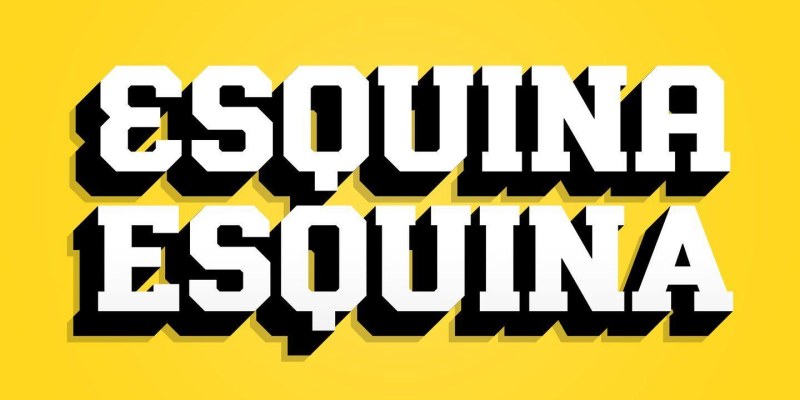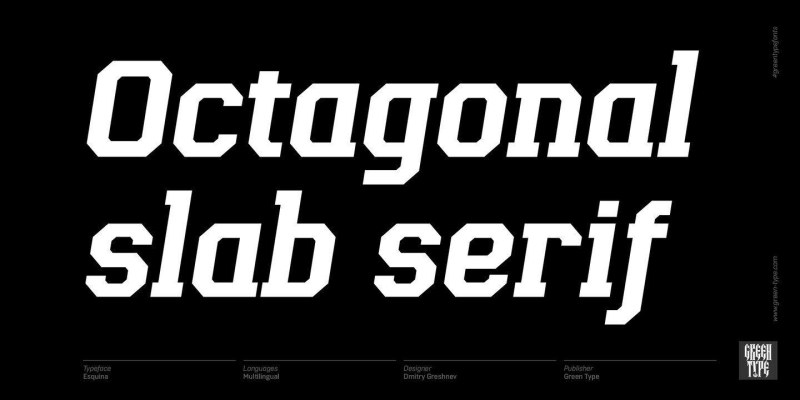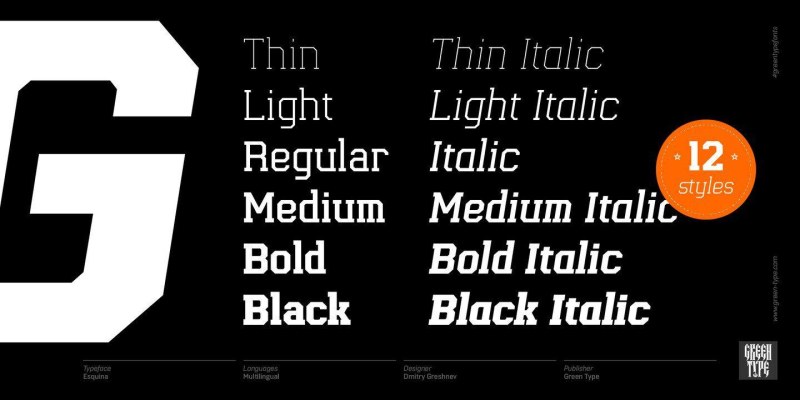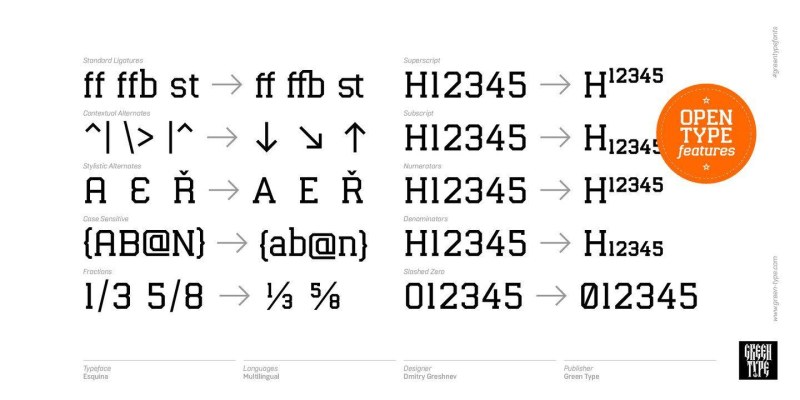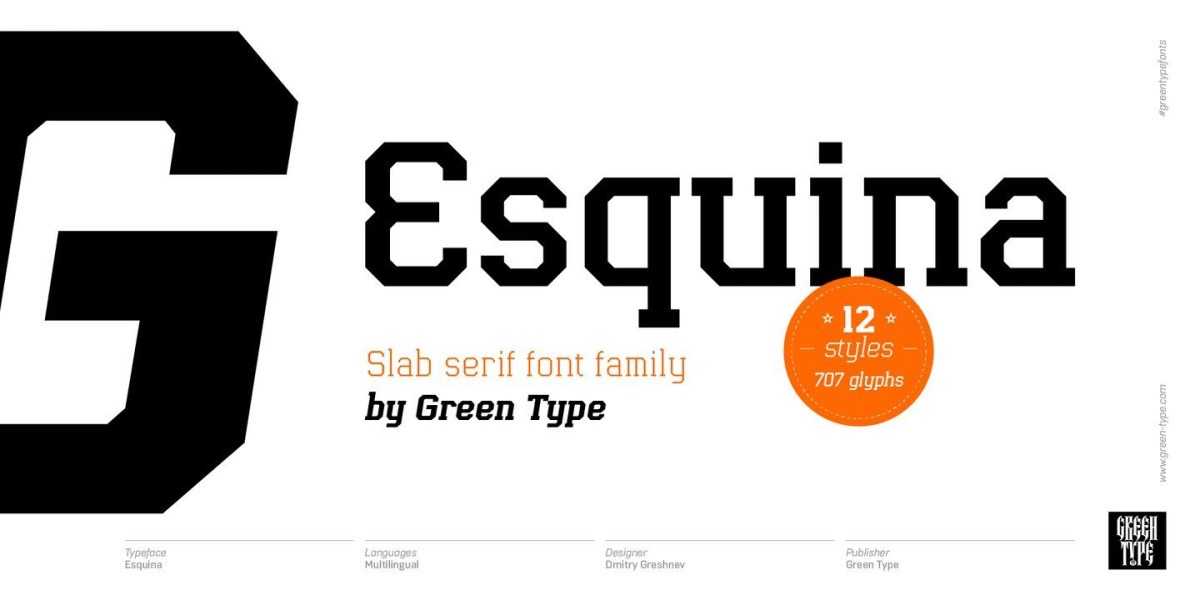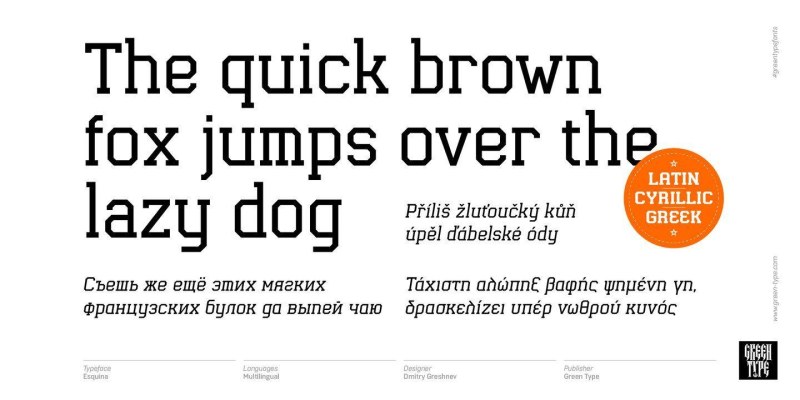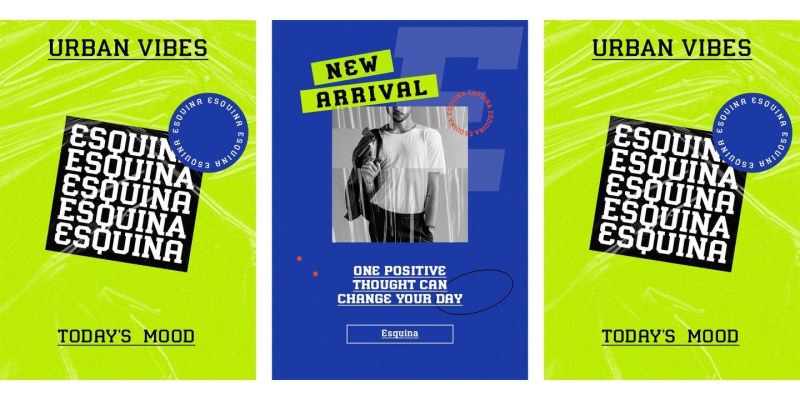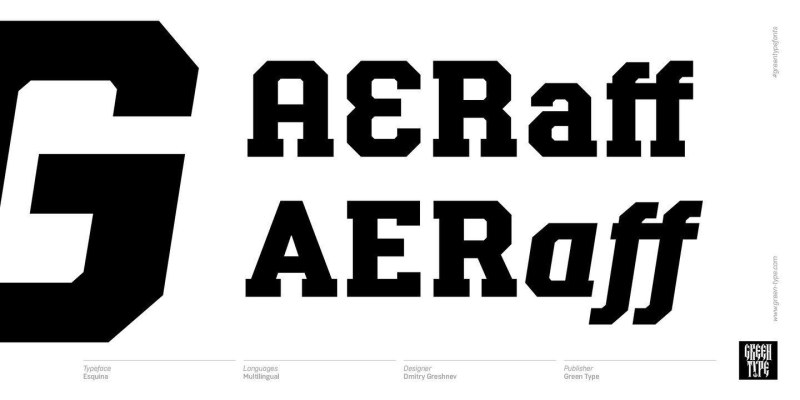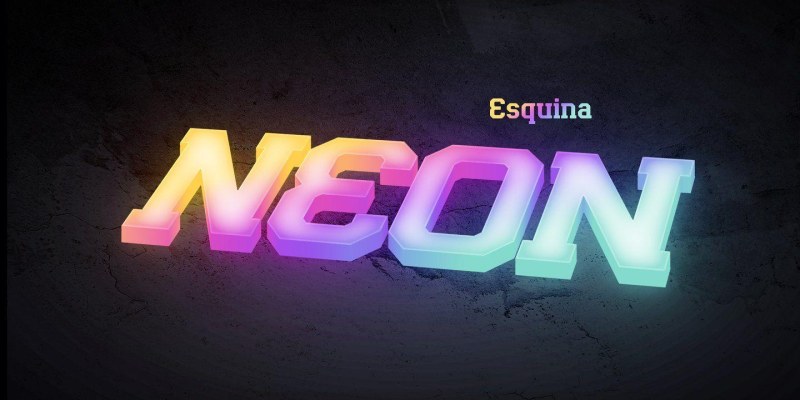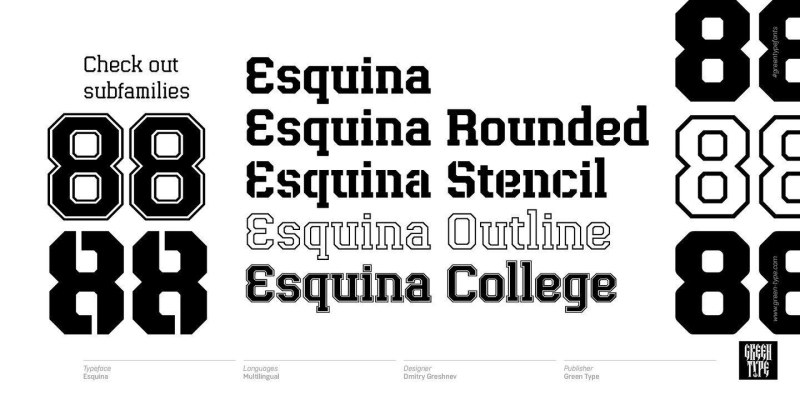
Esquina Font Family
Esquina is a family of octagonal slab serif fonts. Designed for use in outdoor advertising, branding, packaging. Esquina is also ideal for sports related materials such as team logos, flyers, posters and more. Esquina contains Latin, Cyrillic and Greek glyphs.
Where Esquina Font Family works best
Sports & outdoor brands
Slab serifs like Esquina Font Family feel sturdy and confident — perfect for athletic, outdoor and automotive branding.
Editorial headlines
Strong slabs anchor magazine headlines and blog titles.
Packaging
Coffee, craft beer and hardware packaging often lean on slab serifs for a trustworthy look.
What is Esquina Font Family good for?
Esquina Font Family is a Slab Serif Fonts typeface tagged Branding, Packaging, Poster, Serif. It works well for headlines, logos, posters, social media graphics and branding projects that need a distinctive slab serif fonts look.